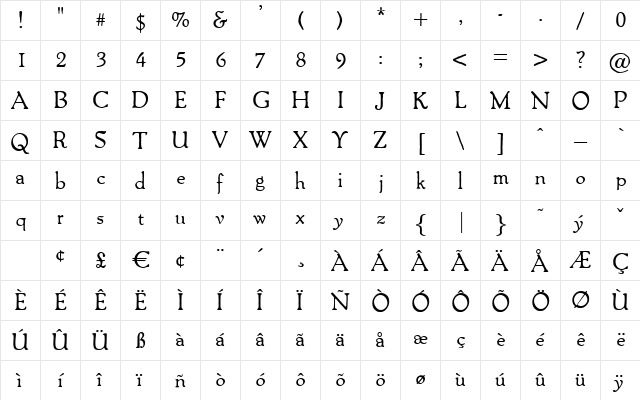
P691-Deco Regular
Design Context for P691-Deco Typeface
P691-Deco offers clean, dependable letterforms without strong stylistic allegiance, making it a practical choice for designers who need flexibility.